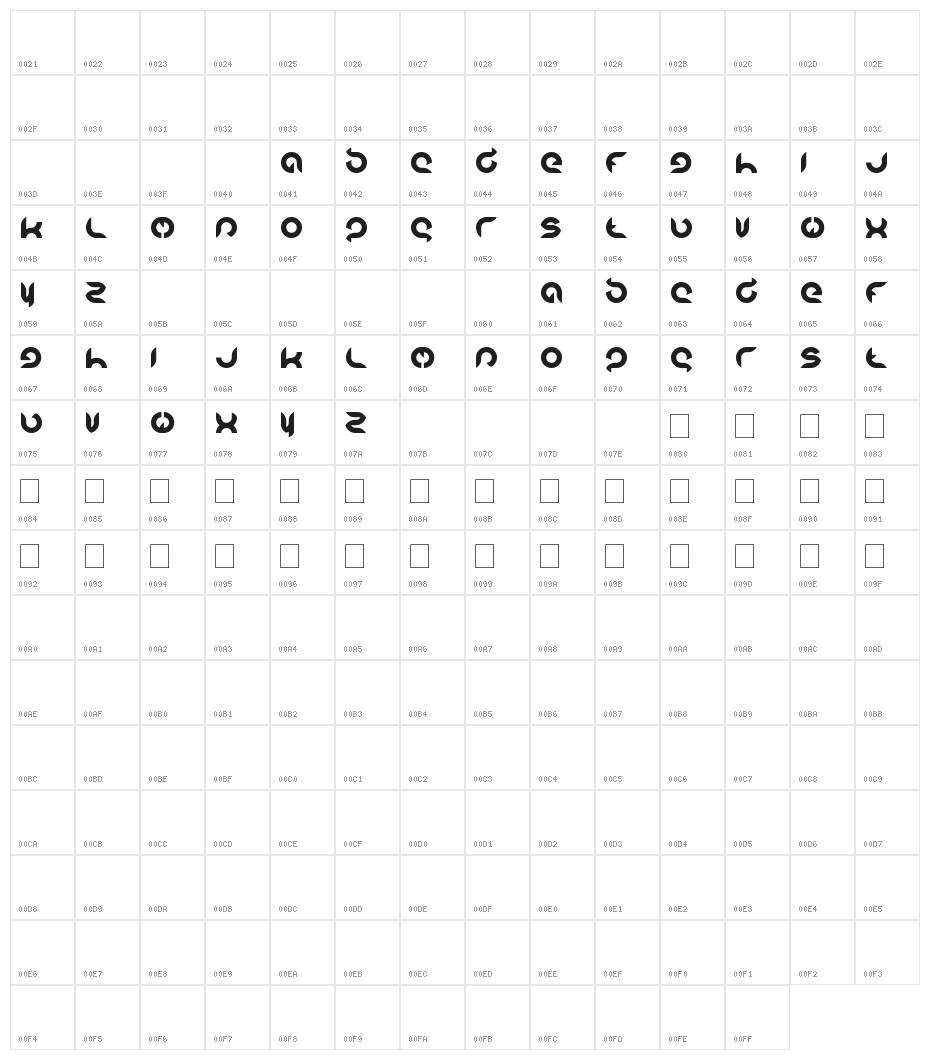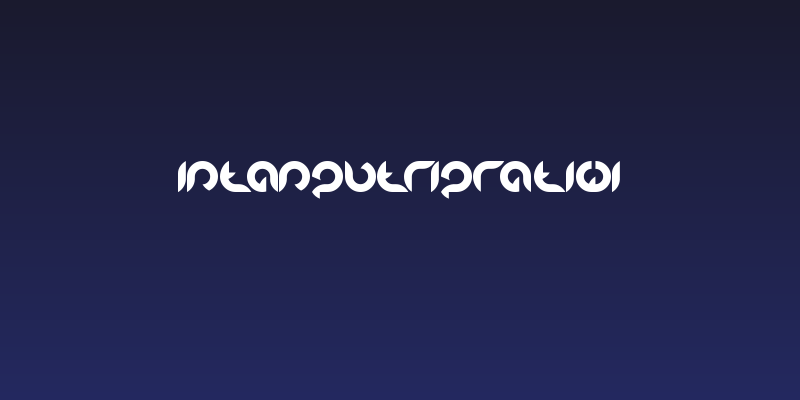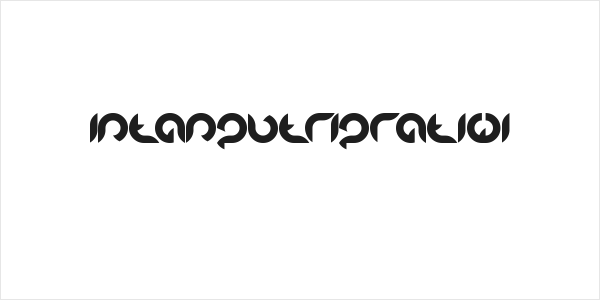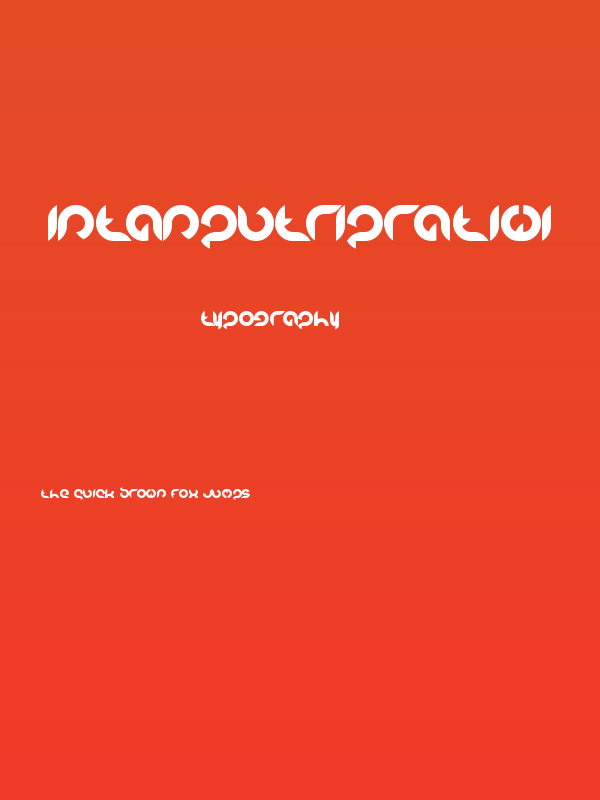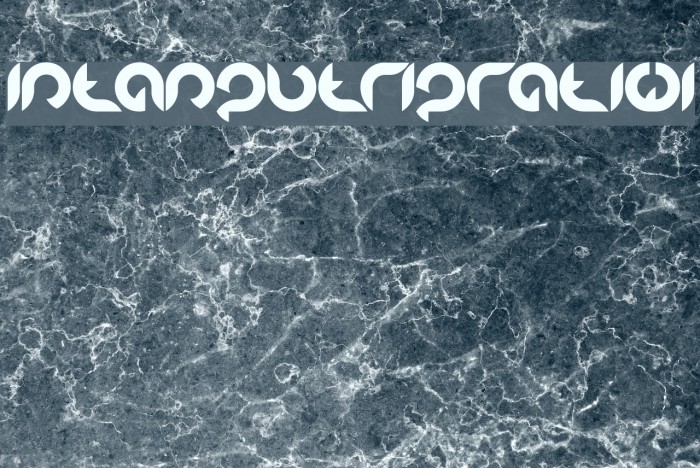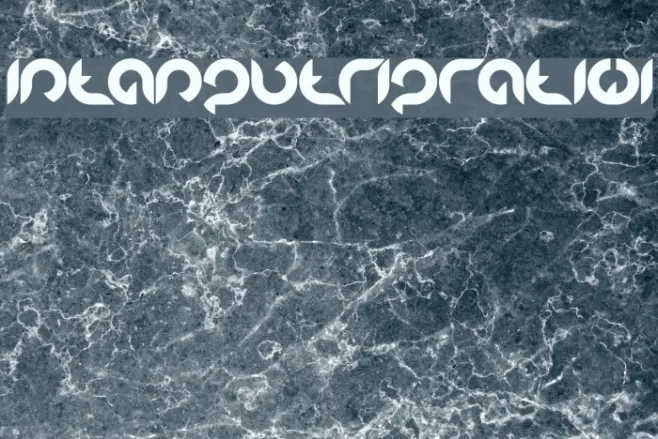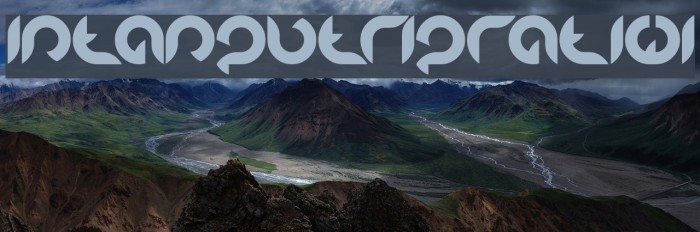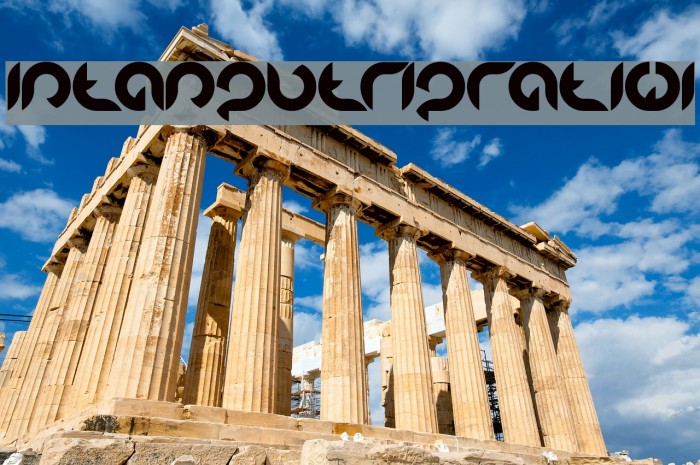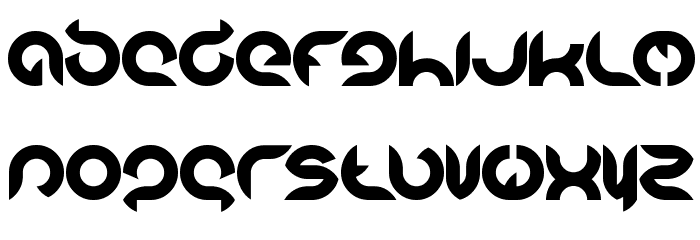
intanputripratiwi Font
intanputripratiwi Description
This font features a bold and futuristic design with geometric shapes and sharp angles. The characters are crafted with a unique blend of curves and straight lines, creating a visually striking appearance. The uppercase and lowercase letters maintain a consistent style, emphasizing symmetry and balance. The font's design is highly decorative, making it suitable for eye-catching headlines and creative projects. Its distinct style is reminiscent of sci-fi and modern digital aesthetics, offering a bold statement in any design context.
INTANPUTRIPRATIWI UPPERCASE
INTANPUTRIPRATIWI LOWERCASE
INTANPUTRIPRATIWI OTHER CHARS
| Overall Style | Futuristic, Modern |
| Proposed Projects | Ideal for sci-fi themed designs, modern digital interfaces, branding, and creative posters. |